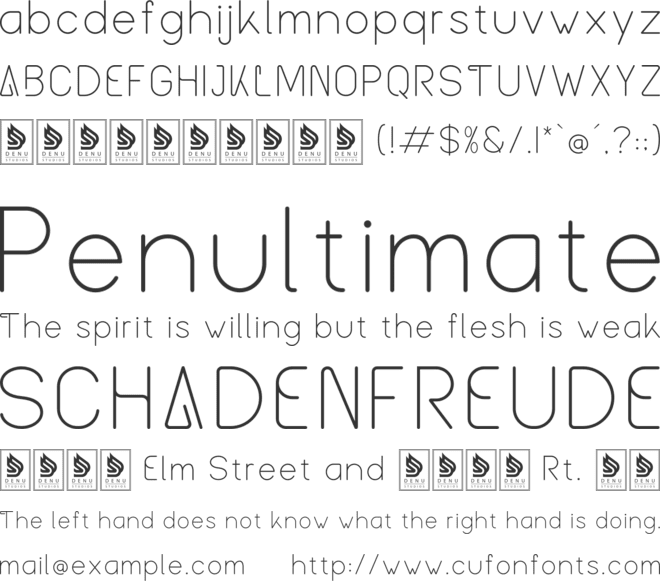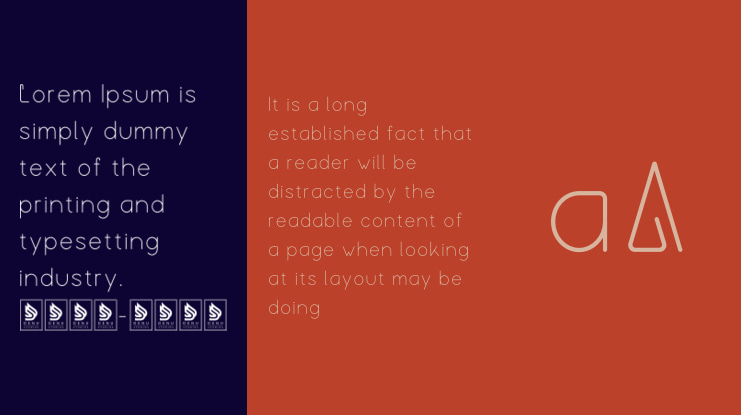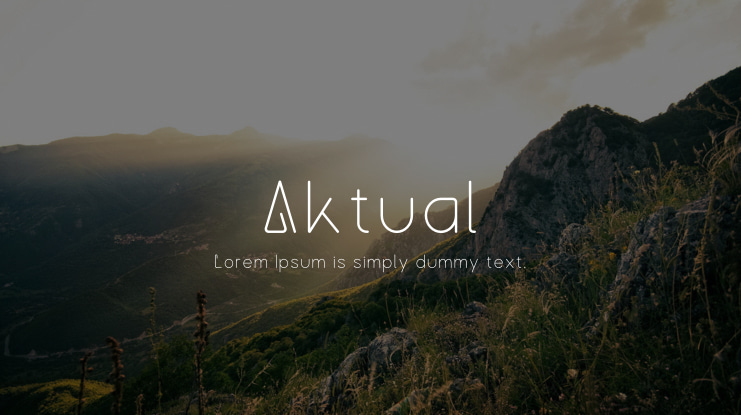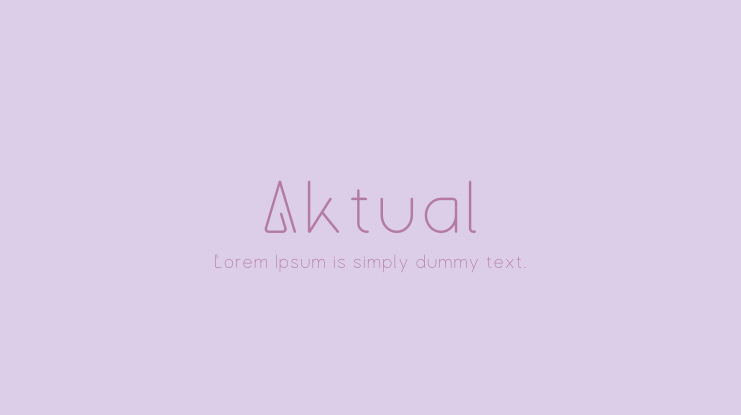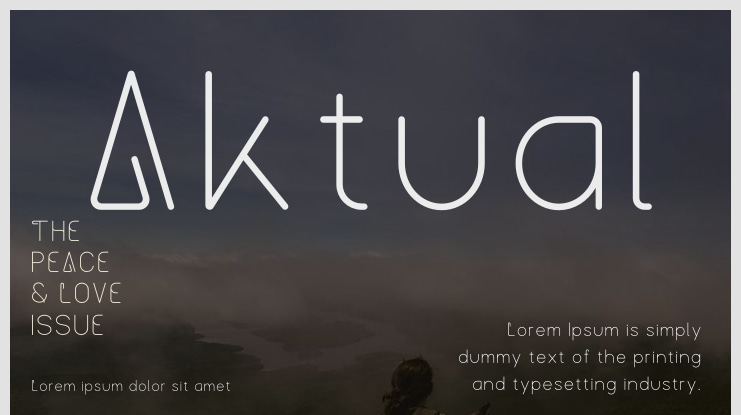
Aktual Font
Aktual | Thin Monoline Sans Serif is perfect for a variety of projects, including but not limited to: logos, branding, homeware designs, product packaging, mugs, quotes, posters, shopping bags, t-shirts, book covers, name cards, invitation cards, greeting cards, labels, photography, watermarks, special events, and any other projects that could use a Thin Monoline Sans Serif aesthetic.